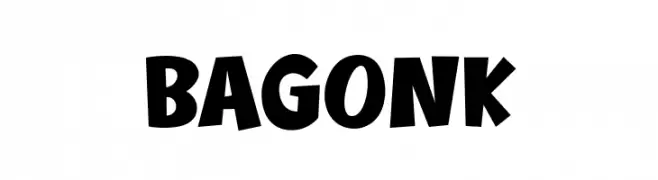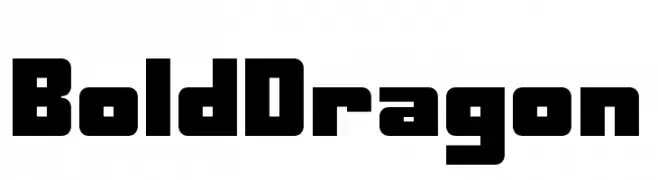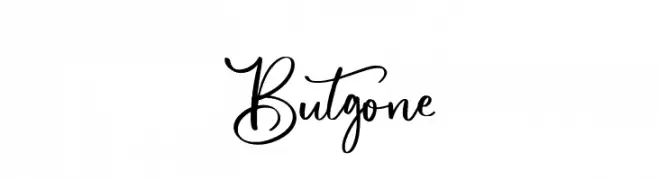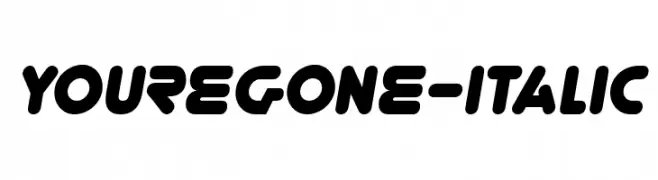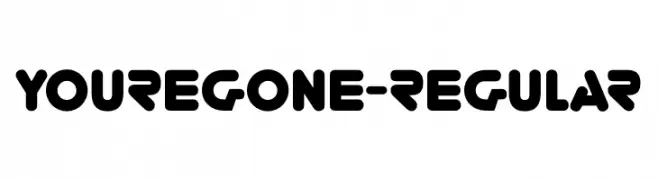
A bold, playful font with exaggerated, uneven strokes and a lively appearance.
A bold, Halloween-themed font with playful, spooky elements.
A bold, flowing script font with elegant, connected letterforms.
An elegant, flowing script font with graceful loops and cursive strokes.
A bold, expressive handwritten script with dynamic, angular strokes.
A bold, rounded, and modern font with a futuristic style.
A bold, rounded, and slightly italicized font with a modern, playful style.
A bold, gothic-inspired font with sharp, angular lines and decorative details.
A lively and elegant script font with flowing, cursive letterforms.
A bold, geometric font with strong, angular shapes for impactful design.